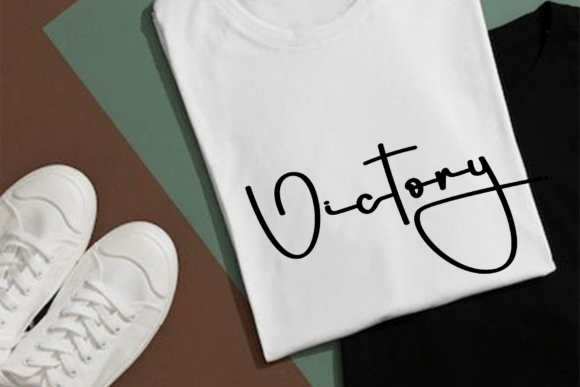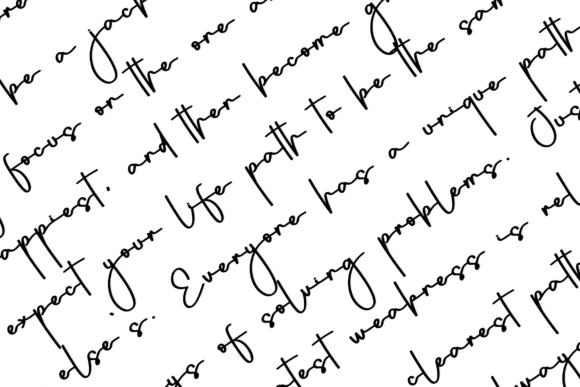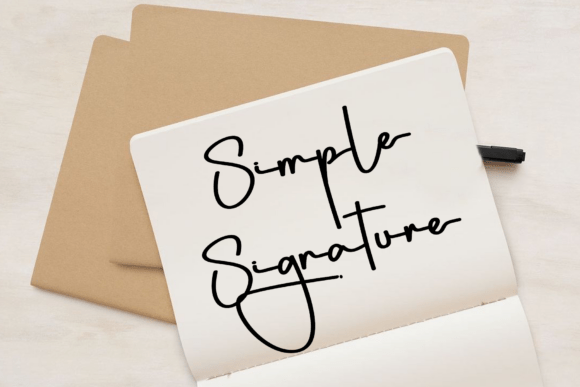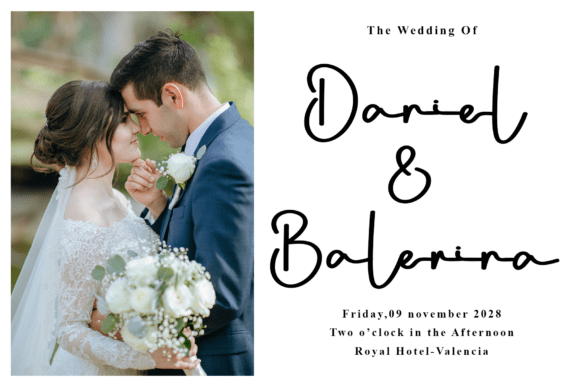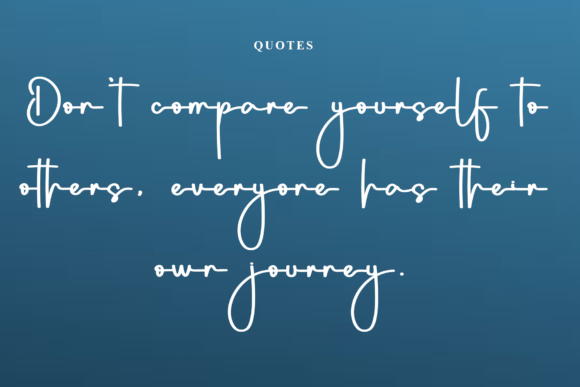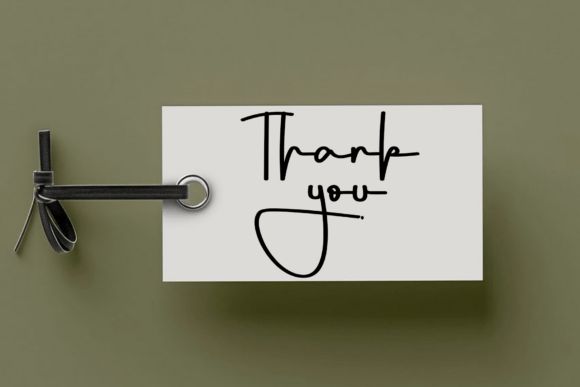
Introducing Autography Font: Elevate Your Design with Elegant Handwritten Style
Are you looking for a font that can add a touch of personal elegance to your designs? Look no further than Autography, a sleek and expressive handwritten font that mimics the effortless flow of a personal signature. With its tall, fluid strokes and casual elegance, Autography is perfect for a wide range of design projects, from logos and personal branding to business cards, social media posts, and signature-style quotes.
The Perfect Balance of Modern Sophistication and Natural Charm
Autography strikes the perfect balance between modern sophistication and natural charm, giving every project a stylish handwritten finish. Its unique blend of fluidity and elegance makes it stand out from other fonts, allowing you to create designs that are both visually appealing and highly personalized. Whether you’re a designer, crafty DIY enthusiast, or simply someone who appreciates beautiful typography, Autography is sure to inspire.
Key Features of Autography Font
- Sleek and Expressive Handwritten Style: Autography’s fluid strokes and casual elegance make it perfect for creating designs that look like they were written with a personal touch.
- Tall and Elegant: The font’s tall stature gives it a sophisticated feel, making it ideal for logos, business cards, and other professional designs.
- Wide Range of Uses: Autography is versatile enough to be used in a variety of design projects, from personal branding and social media posts to signature-style quotes and more.
Why Choose Autography Font?
So why choose Autography over other fonts? Here are just a few reasons why designers and crafters love this elegant handwritten font:
- Easy to Read and Write: Despite its elegant appearance, Autography is easy to read and write, making it perfect for body text and other large blocks of text.
- Highly Customizable: With PUA encoding and a range of special characters, swashes, and decorative elements, Autography is highly customizable, allowing you to create unique designs that reflect your personal style.
- Unique and Memorable: Autography’s distinctive style makes it a great choice for logos and personal branding, helping you to create a lasting impression on your audience.
Using Autography Font in Your Design Projects
Autography is easy to use in a variety of design projects. Here are a few ideas to get you started:
- Logos and Personal Branding: Use Autography to create a unique and memorable logo that reflects your personal style.
- Business Cards: Add a touch of elegance to your business cards with Autography’s fluid strokes and casual charm.
- Social Media Posts: Use Autography to create eye-catching social media posts that stand out from the crowd.
- Signature-Style Quotes: Create beautiful signature-style quotes with Autography’s decorative elements and swashes.
In conclusion, Autography is a versatile and elegant handwritten font that’s perfect for designers, crafters, and anyone looking to add a touch of personal style to their designs. With its sleek and expressive style, tall fluid strokes, and casual elegance, Autography is sure to inspire. So why wait? Download Autography today and start creating beautiful designs that reflect your unique personality and style.